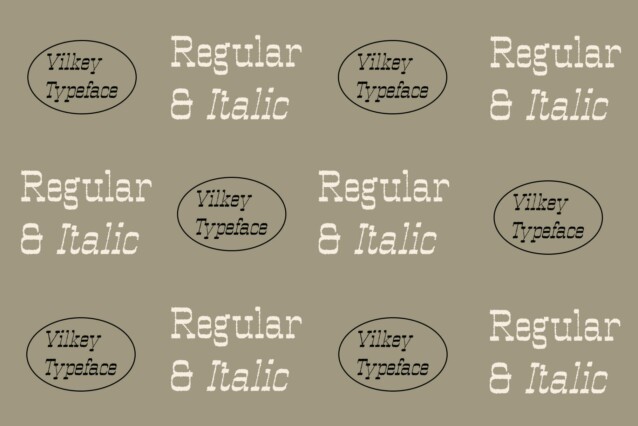
Vilkey Rough Font
Vilkey Rough Font is a reverse contrast slab serif design, where the thick strokes are found in the horizontal elements rather than the vertical ones. This unique characteristic lends it a striking and unconventional appearance.
Rough Texture Effect The font is enhanced with a rough texture effect, adding depth and character to each letterform. This rugged texture imbues This font with a sense of authenticity and handmade craftsmanship, perfect for adding personality to display projects.